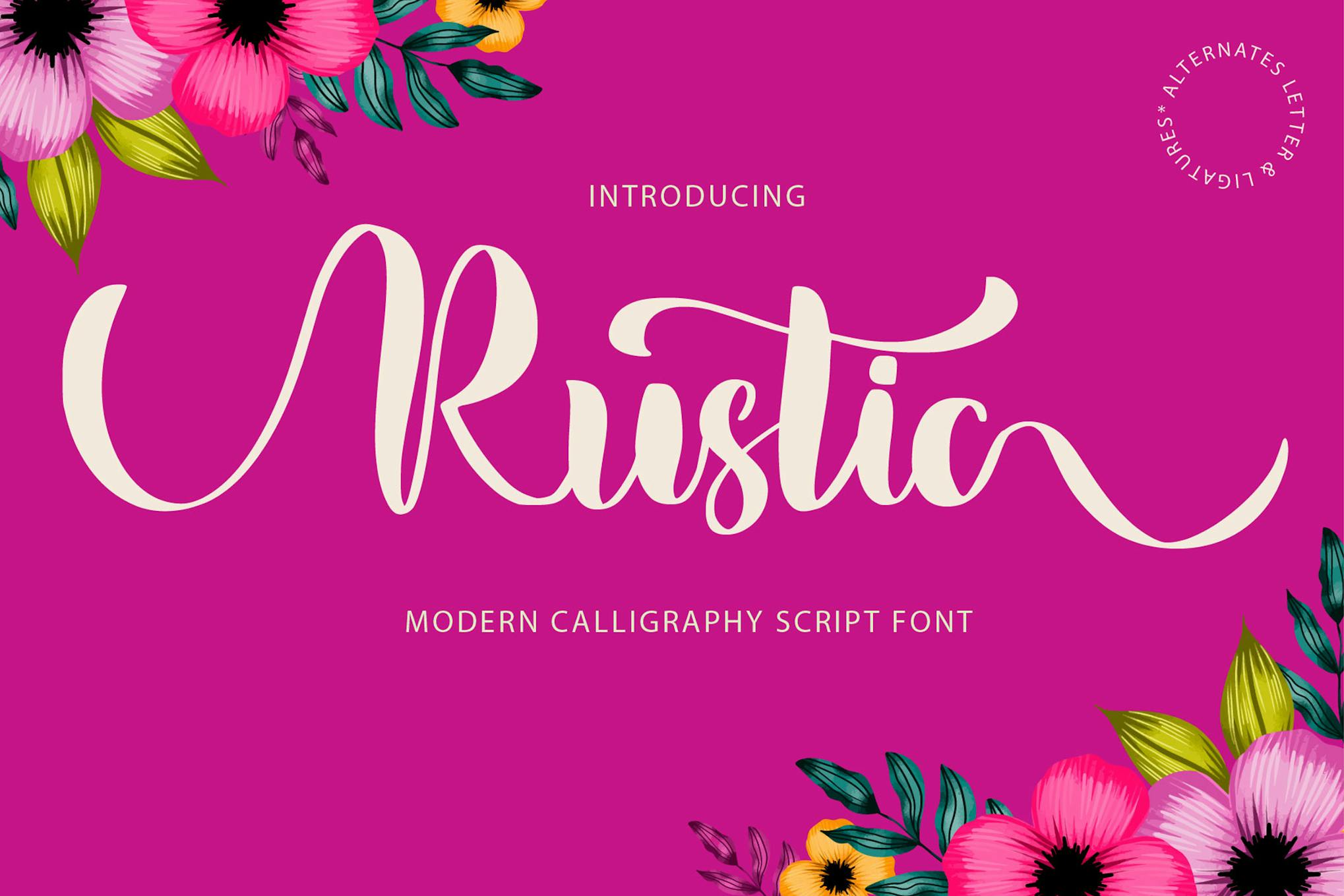
Rustic Wedding Font
The Rustic Wedding Font excels in natural design applications including countryside wedding invitations, rustic bridal branding, barn ceremony logos, farmhouse product packaging, country business cards, rustic portfolios, countryside greeting cards, natural social media graphics, barn event signage, and rustic marketing materials. Its rustic script style makes it perfect for projects requiring country elegance that communicates simplicity and establishes natural brand positioning with audiences seeking rustic wedding experiences and countryside sophistication.
What makes the Rustic Wedding Font truly exciting is its exceptional ability to capture the authentic charm and natural beauty of countryside weddings through organically crafted letterforms. The font features flowing, rustic strokes with natural flourishes and country proportions that create a distinctly farmhouse appearance. Each character displays remarkable attention to rustic detail with organic curves, natural connections, and countryside spacing that give text a beautifully rustic, hand-lettered quality. The font's country character and natural rhythm create an atmosphere of authentic simplicity while maintaining rustic sophistication and wedding authenticity.
The Rustic Wedding Font family typically includes regular weight with extensive character coverage, featuring uppercase and lowercase letters, numerals, punctuation marks, and international characters. The typeface often incorporates stylistic alternates, contextual ligatures, and rustic swashes that enhance its signature countryside appeal. These additional elements provide designers with creative flexibility to customize text appearance and achieve more natural-looking rustic handwriting that reflects the font's country and natural character.
This country signature font distinguishes itself through its remarkable balance of rustic charm and sophisticated elegance. Unlike polished or urban fonts that lack countryside appeal, Rustic Wedding Font embraces the power of natural design to create authentic connections with country wedding audiences. The font's rustic character makes it essential for countryside wedding planners, rustic brands, and farmhouse celebration businesses where creating natural wedding experiences and rustic memories is fundamental to success in country wedding markets.